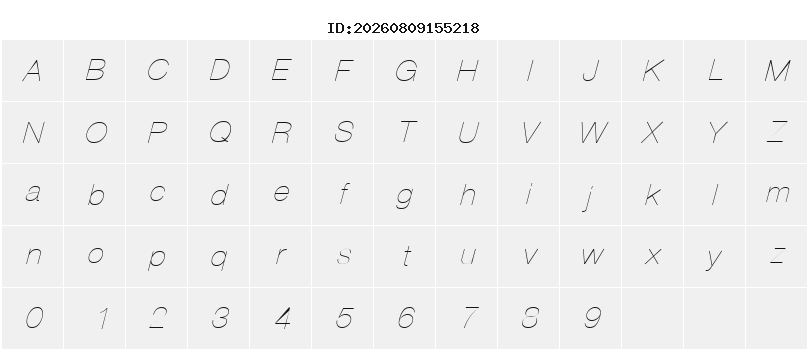
Partridge-Thin Preview
• Font Name: Partridge-Thin
• Font Style: Oblique
• Font ID: Partridge Thin Oblique
• Full Font Name: Partridge Thin Oblique
• Version: 1.0 Fri Jun 17 18:59:11 1994
• PostScript Name: Partridge-ThinOblique
• Character Count: 97
About Partridge-Thin.ttf
Partridge-Thin.ttf is a modern, elegant sans-serif font designed for ultimate readability and visual harmony. Perfect for branding, headlines, web design, and print materials.